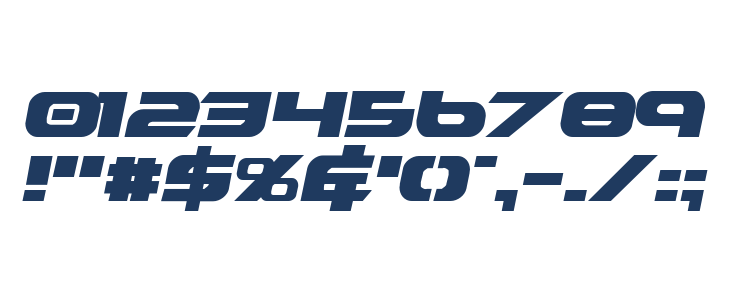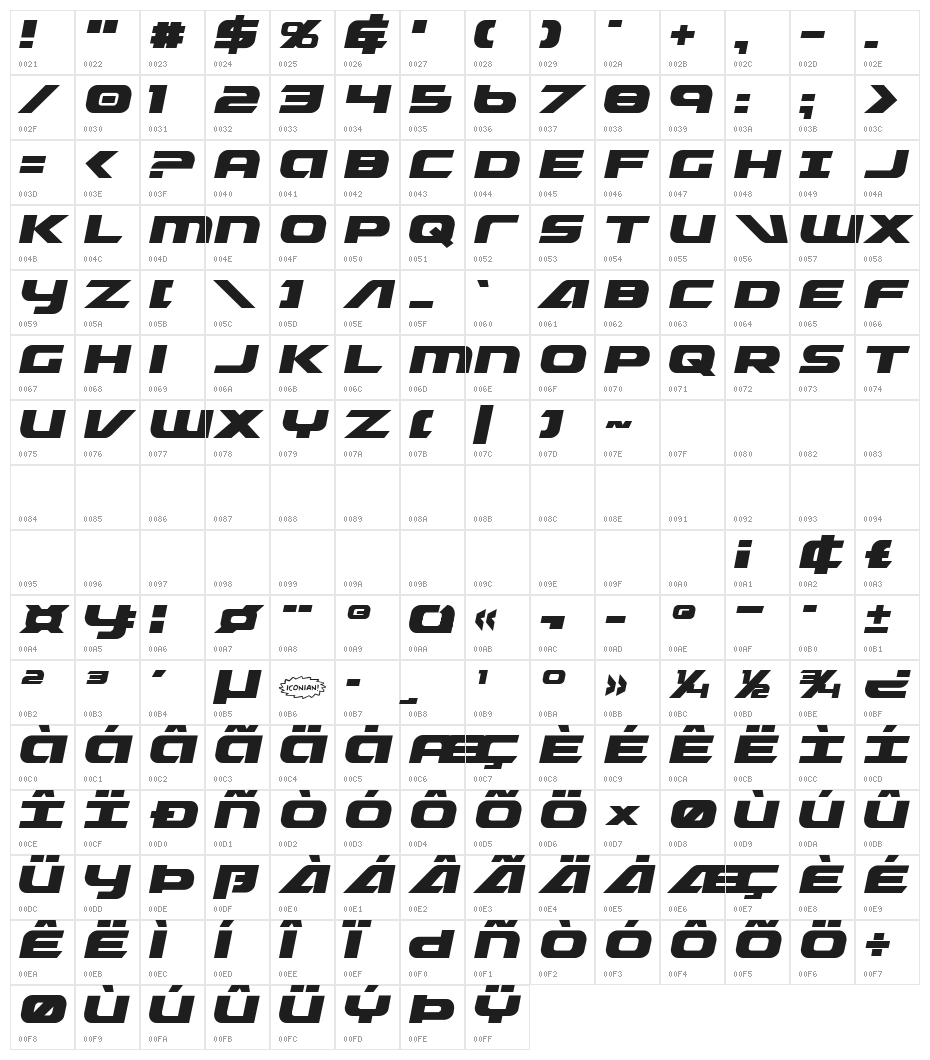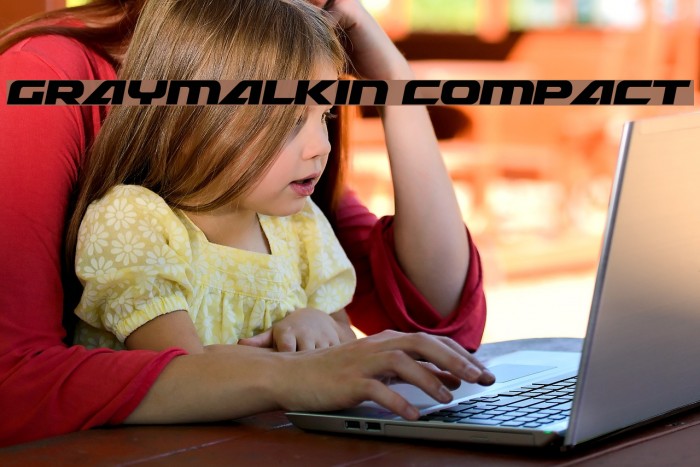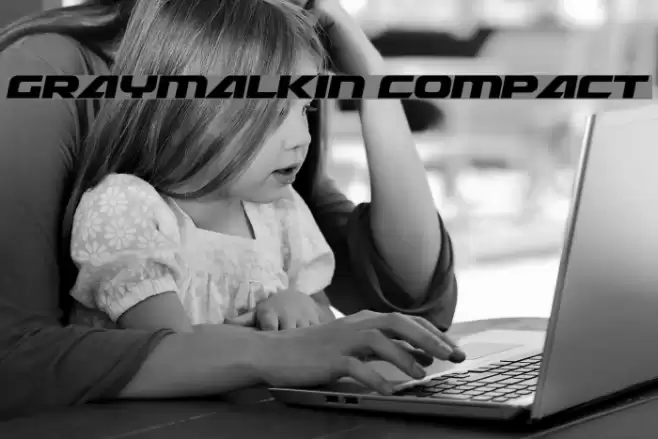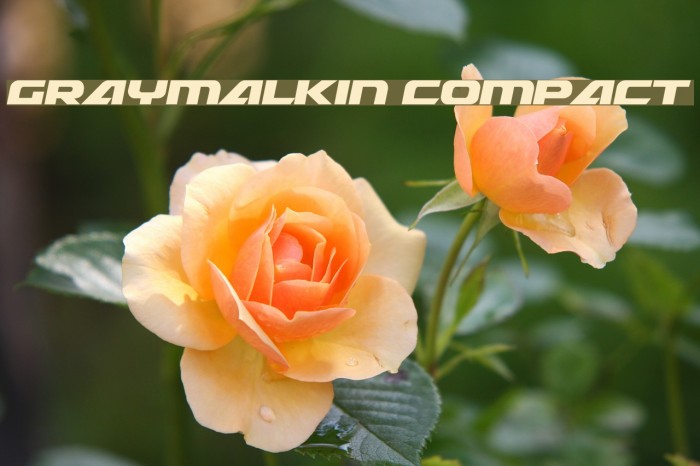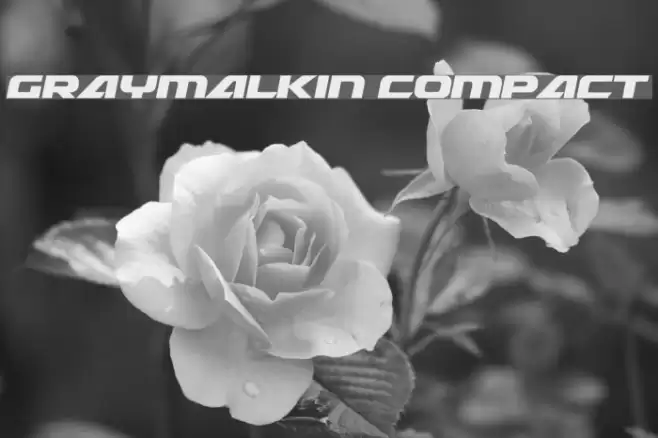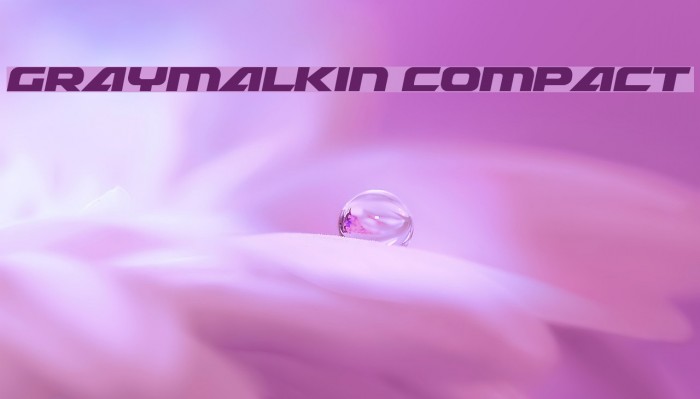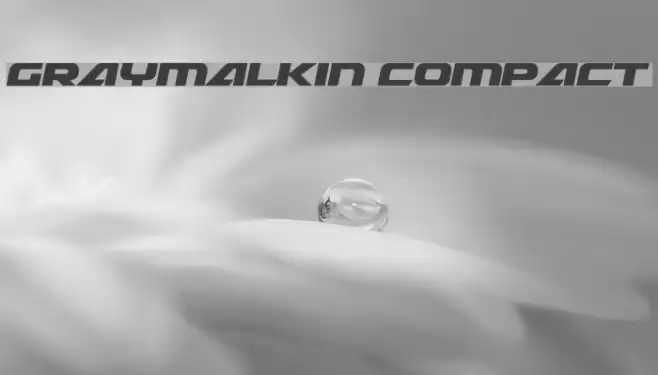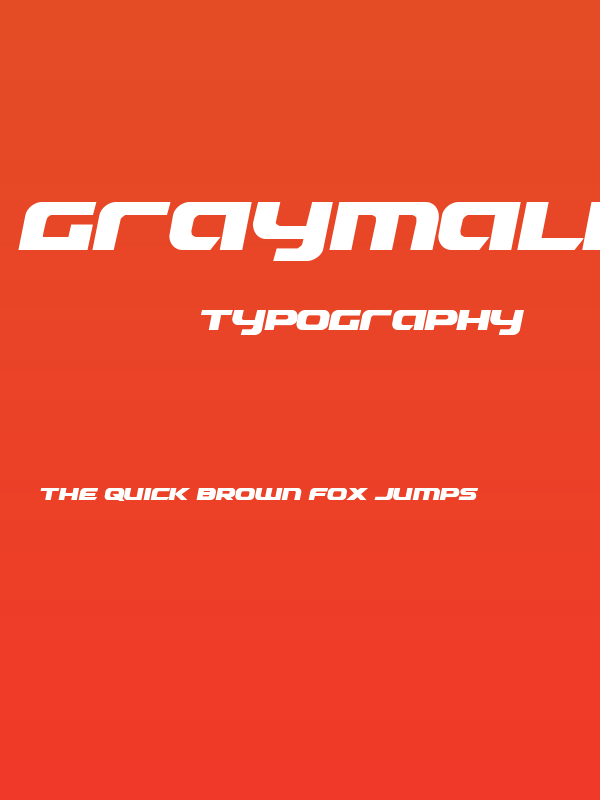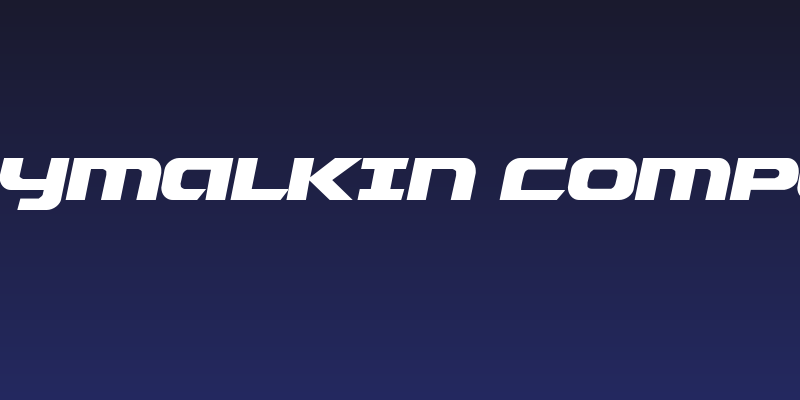
Graymalkin Compact Font
Graymalkin Compact Description
This font features a bold, futuristic design with angular and geometric shapes. The characters are compact and slightly condensed, giving a sense of speed and modernity. The uppercase and lowercase letters maintain a consistent style, with sharp edges and a dynamic slant that suggests movement. The numerals and special characters follow the same design principles, ensuring uniformity across all glyphs. The overall appearance is sleek and contemporary, making it suitable for projects that require a cutting-edge aesthetic.
| Proposed Projects | Ideal for technology branding, sci-fi movie posters, video game titles, and modern advertising campaigns. |